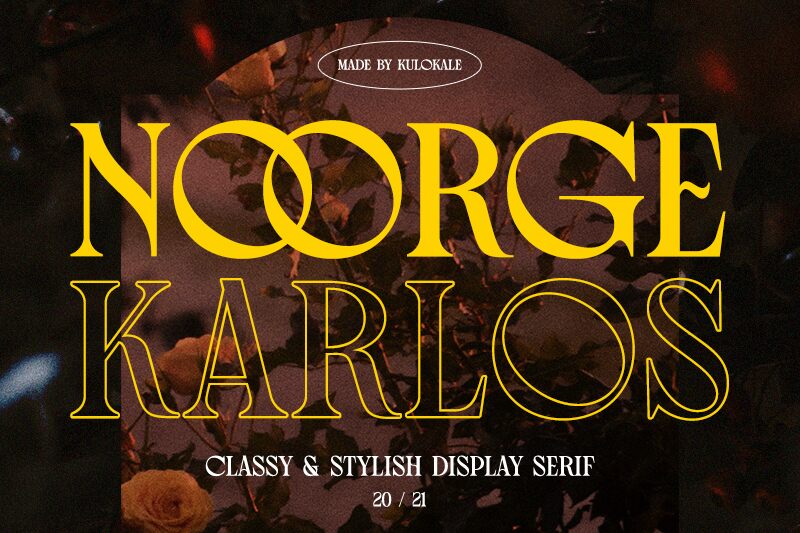
NoorgeKarlos-Regular
Noorge Karlos, designed by Kulokale Studio, is a captivating serif font with a semi-light weight. Its elegant and refined style is perfect for creating sophisticated and professional designs. With its legible and versatile nature, Noorge Karlos is an ideal choice for various projects such as book covers, luxury branding, editorial layouts, and elegant invitations. This font effortlessly combines classic charm with contemporary appeal, making it suitable for both digital and print design ventures. Enhance your projects with the timeless grace of Noorge Karlos and elevate them to new levels of visual excellence.
Kulokale Studio
M Arif Dwi Prasetyo & Eko Nurcahyo